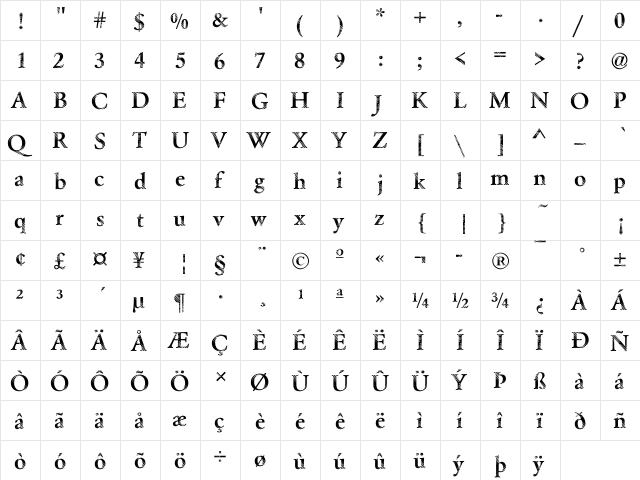
DTCGaramondM23 Regular
Design Context for DTCGaramondM23 Typeface
DTCGaramondM23 is a composed and adaptable typeface that performs quietly and consistently across a wide range of design contexts.